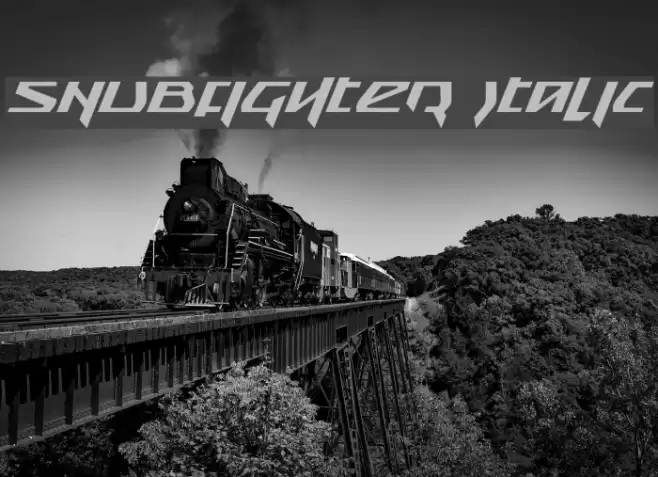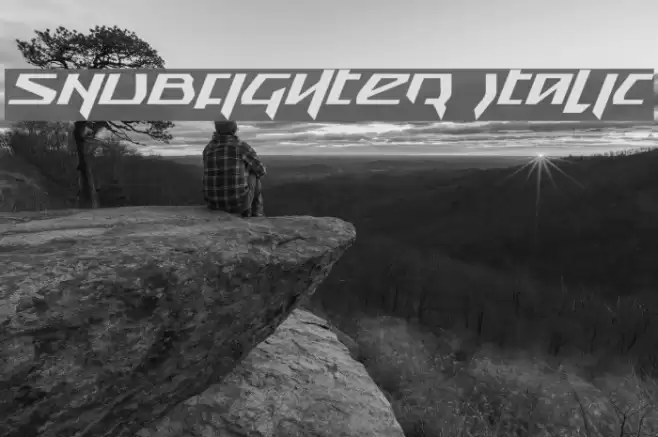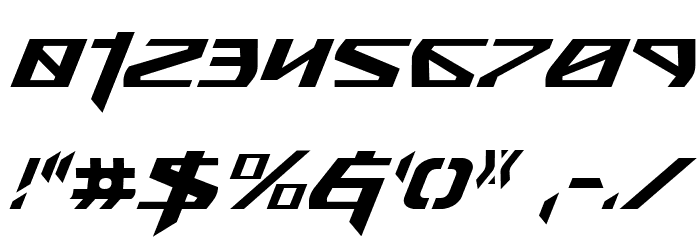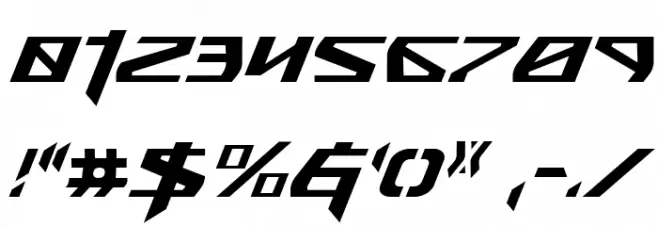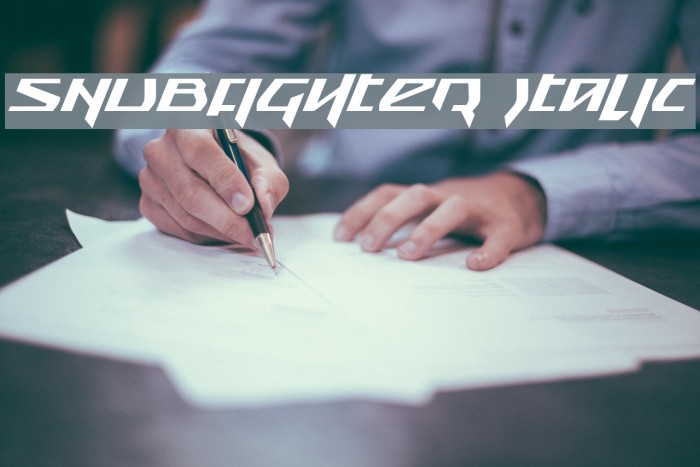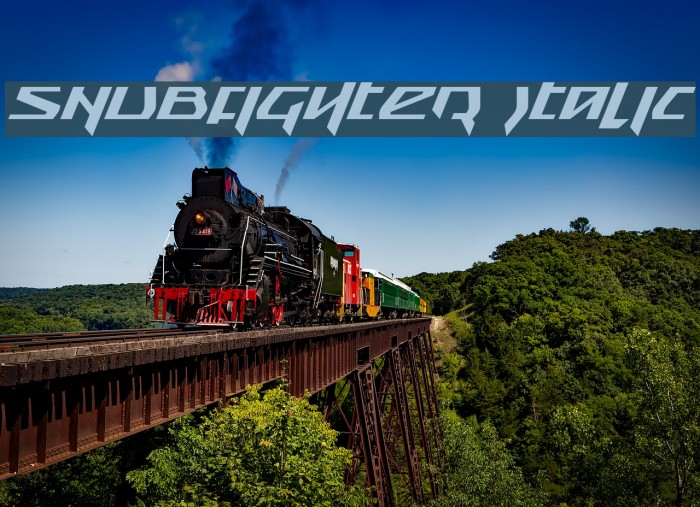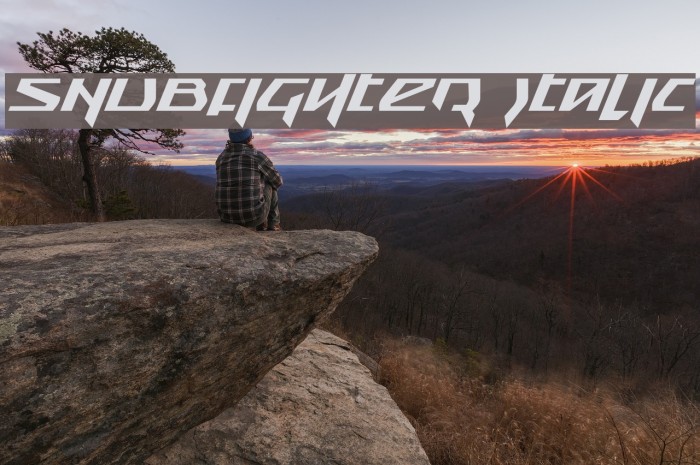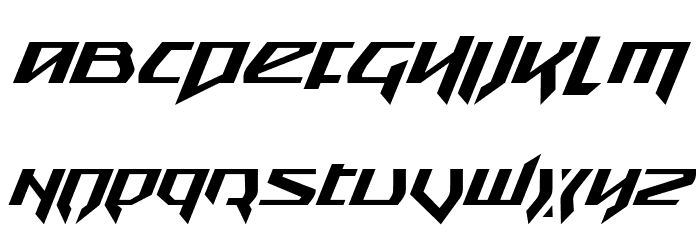
Snubfighter Italic Font
Snubfighter Italic Description
This font features a bold, angular design with sharp edges and a futuristic aesthetic. The characters are italicized, giving them a dynamic, forward-leaning appearance. The uppercase and lowercase letters share a consistent style, with a strong emphasis on geometric shapes and diagonal lines. The numbers and special characters maintain the same angular and edgy design, ensuring a cohesive look across all glyphs. The font's unique style makes it stand out, ideal for projects that require a modern and aggressive visual impact.
A bold, angular, and italicized font with a futuristic and dynamic style from Sci-fi fonts.
- Proposed Projects: Ideal for sci-fi themed designs, video game titles, movie posters, and branding that requires a modern and edgy look.
- Overall Style: Futuristic, Dynamic